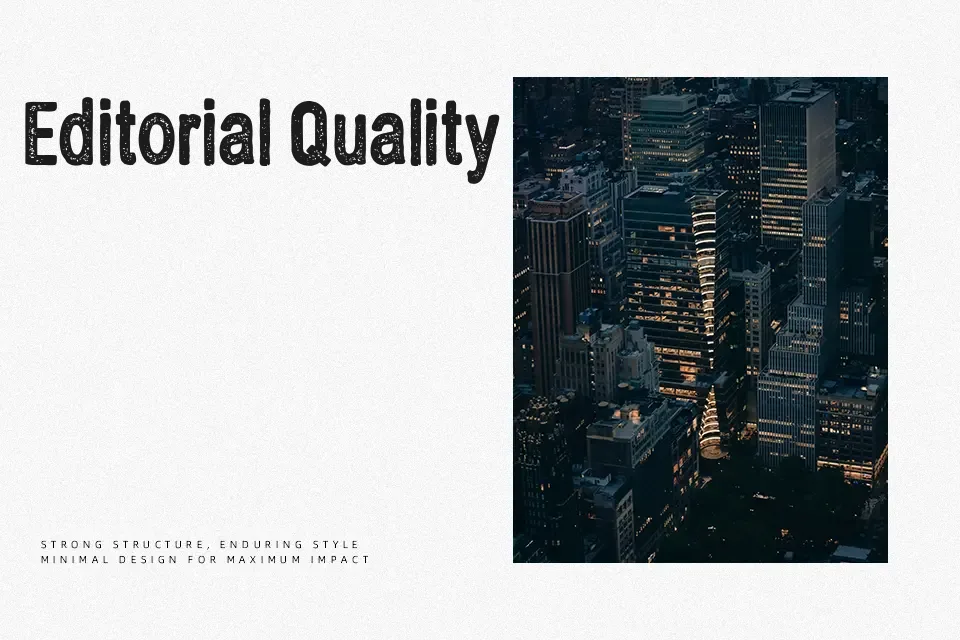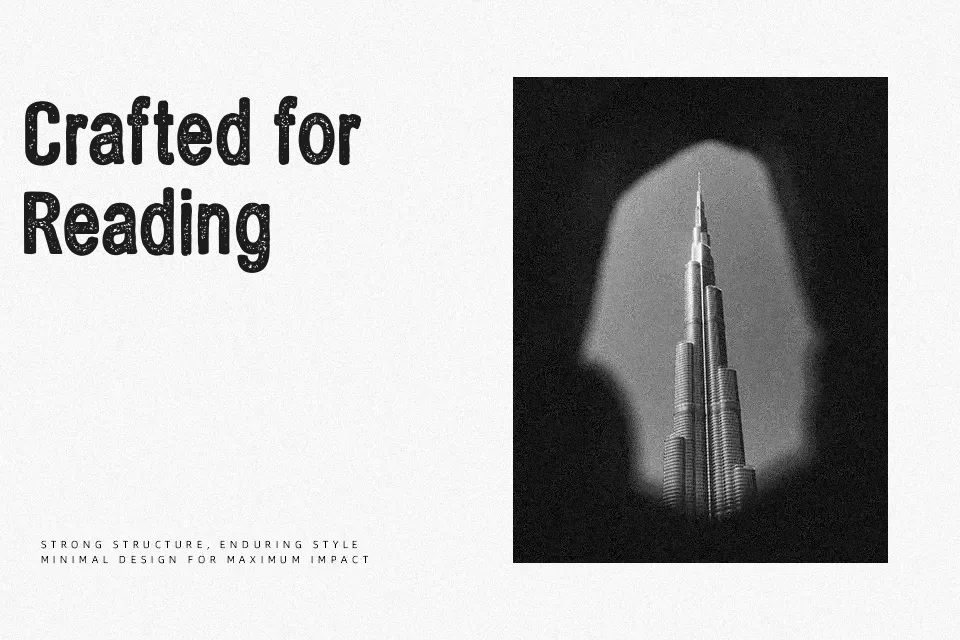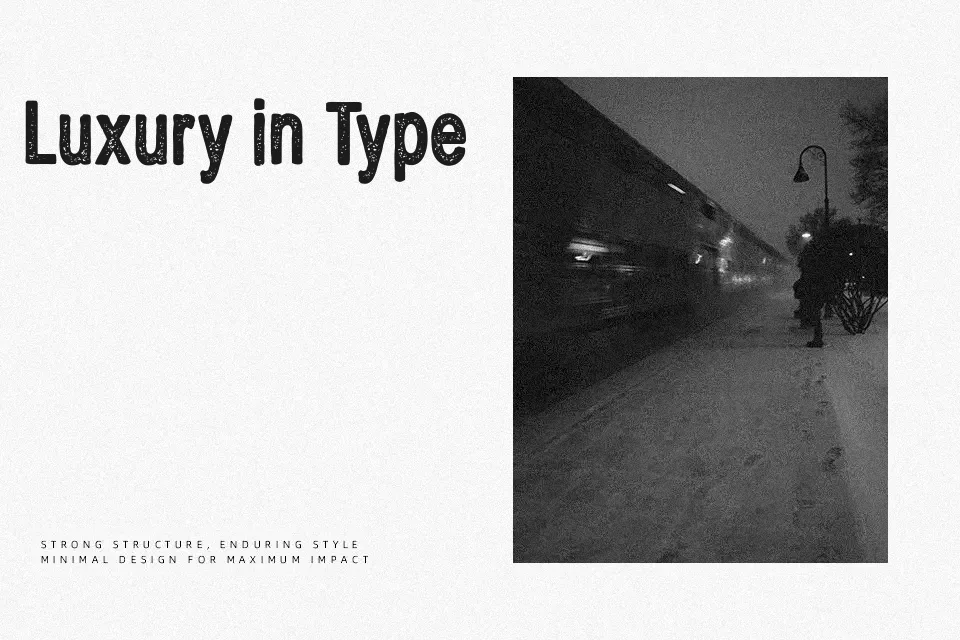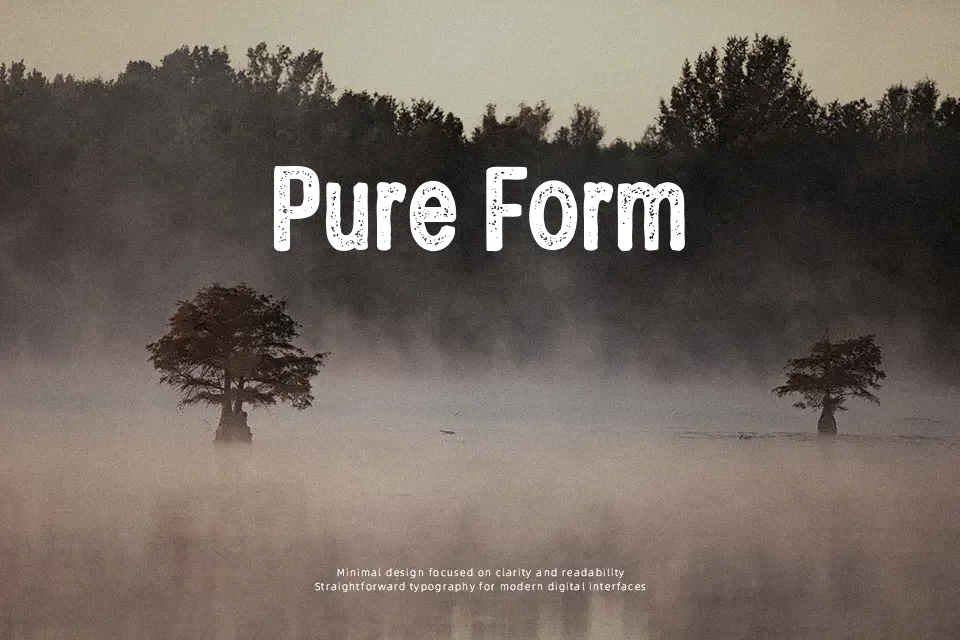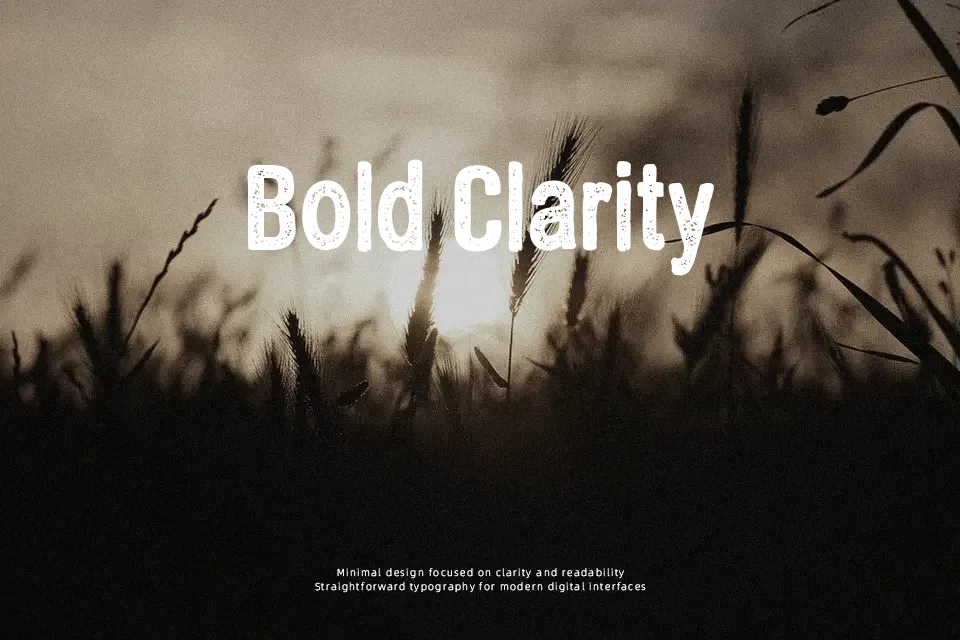
CF Brothers in Arms Font
Designed by Cloutierfontes
CF Brothers in Arms Font showcases heavily eroded letterforms characterized by weathered cutouts, dense stroke weights, and narrow structural proportions. The tight spacing between characters creates an imposing typographic presence that commands attention in oversized media. Solid outer contours ground each glyph, while internal distressing produces an authentic weathered finish. This design excels in action title sequences, streetwear graphics, and dramatic headline layouts. However, the irregular textures and compact spacing significantly reduce legibility at small sizes. The typeface proves most dependable when deployed as large focal text, where its intricate stencil deterioration remains crisp without degrading overall letter recognition.
Best For: vintage military posters, action video game covers, streetwear apparel graphics, grunge packaging
Not Ideal For: continuous body text, legal documents, small UI labels, dense editorial paragraphs
Perfect for branding, gaming, and headline, with a bold and condensed style.